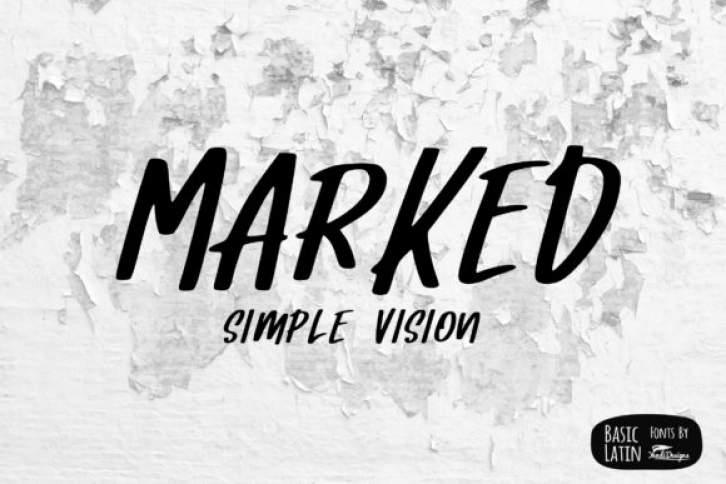
Marked is a striking display font perfect for projects such as logos, posters, t-shirt designs and much more.
Use this stunning font in your next designs to give them charm and character.